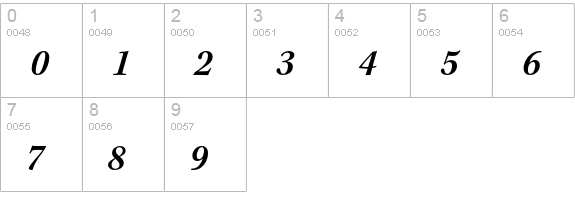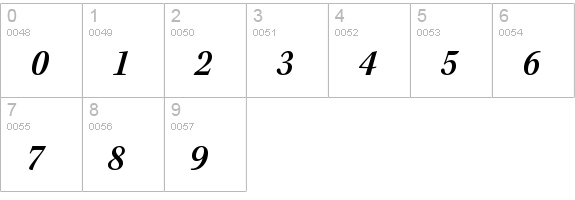
Kepler Std Semibold Semicondensed Italic Font Details
Kepler Std Semibold Semicondensed Italic is a sub-bold, structured, italic variant in the Kepler typeface family \xE2\x80\x94 well suited to sub-headlines and emphasised passages.
Kepler Std Semibold Semicondensed Italic font is a versatile and elegant typeface that is perfect for creating eye-catching designs. Its semibold weight adds a touch of boldness and confidence to any project, while its semicondensed style allows for more compact layouts without sacrificing legibility. This font features a subtle italic slant, adding a touch of sophistication and style to your text. Whether you're designing a logo, creating a poster, or working on a website, Kepler Std Semibold Semicondensed Italic font will elevate your design to the next level. The clean and modern design of Kepler Std Semibold Semicondensed Italic font makes it suitable for a wide range of applications. From corporate branding to editorial design, this font will bring a sense of professionalism and elegance to your work. And the best part is, Kepler Std Semibold Semicondensed Italic font is available for free! You can easily download this font from FontsMarket.com, a trusted source for high-quality fonts. So why wait? Start using Kepler Std Semibold Semicondensed Italic font today and take your designs to new heights.